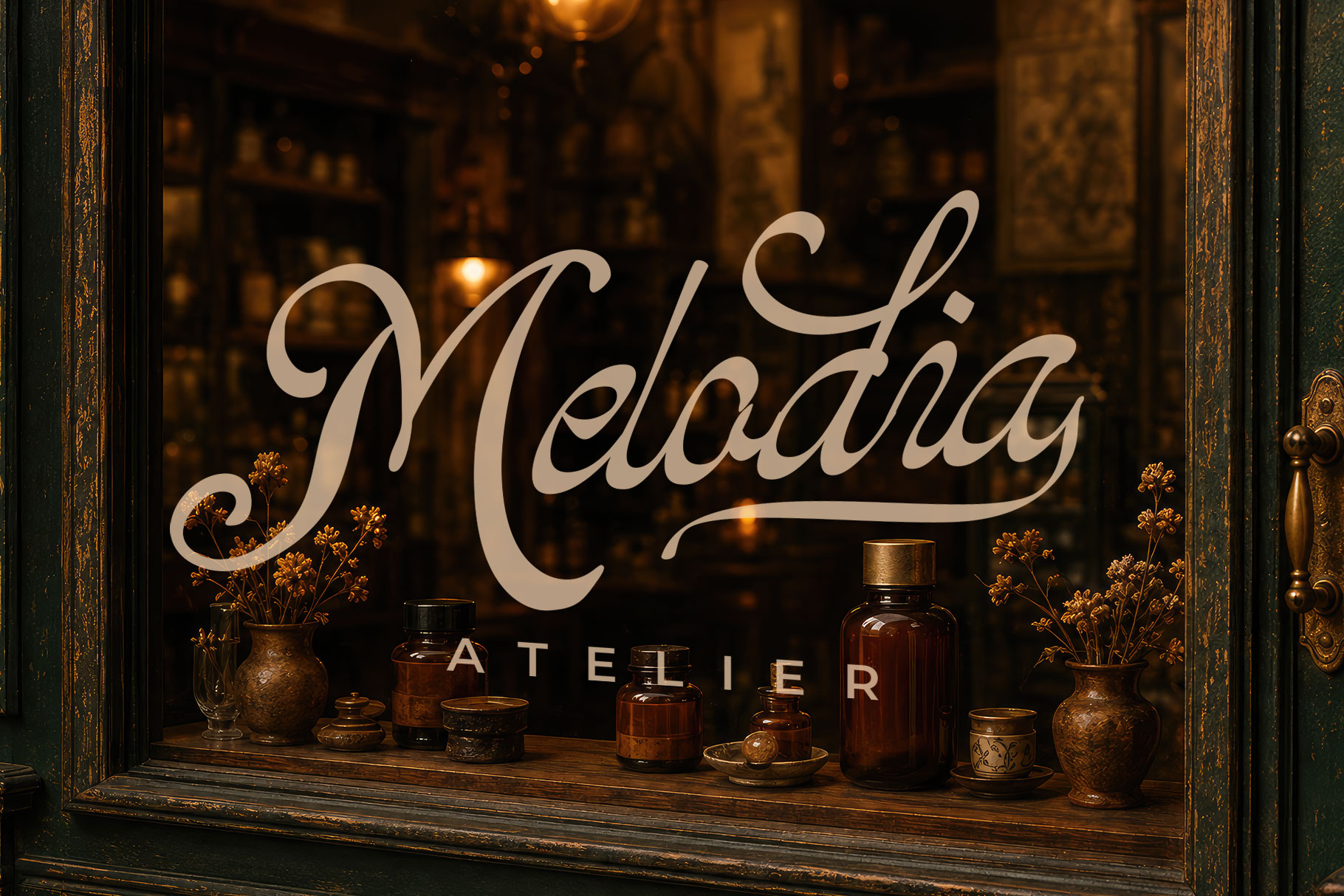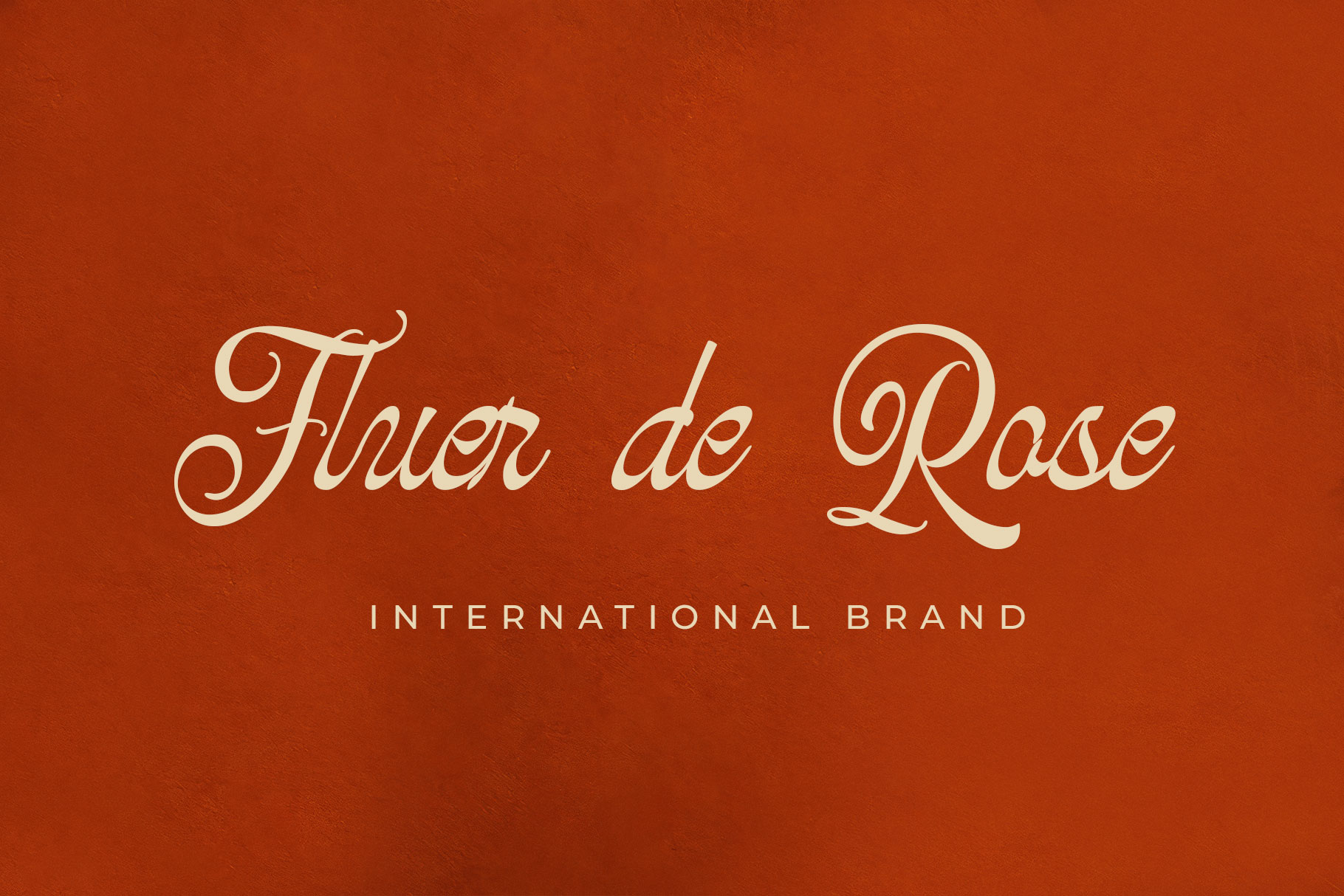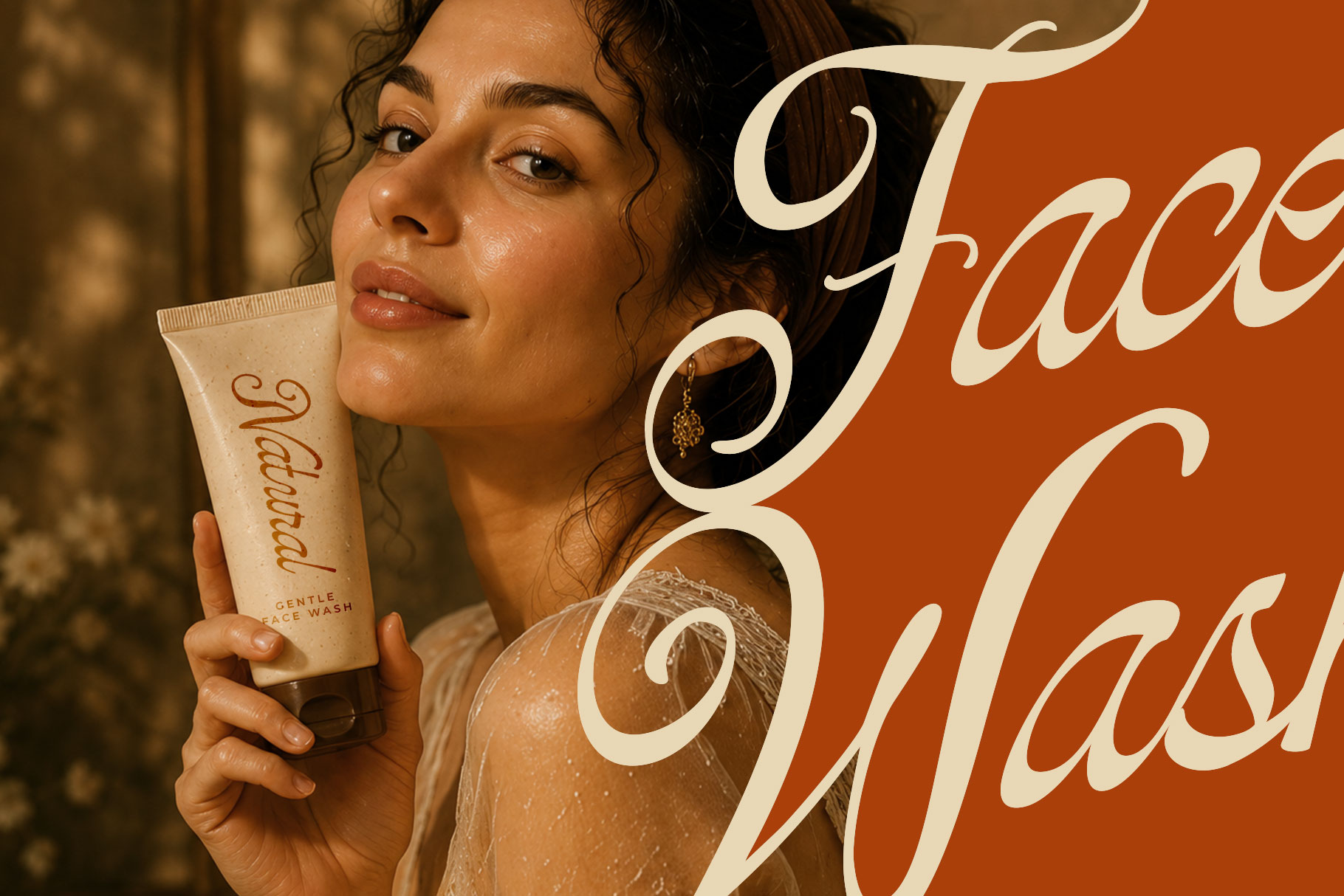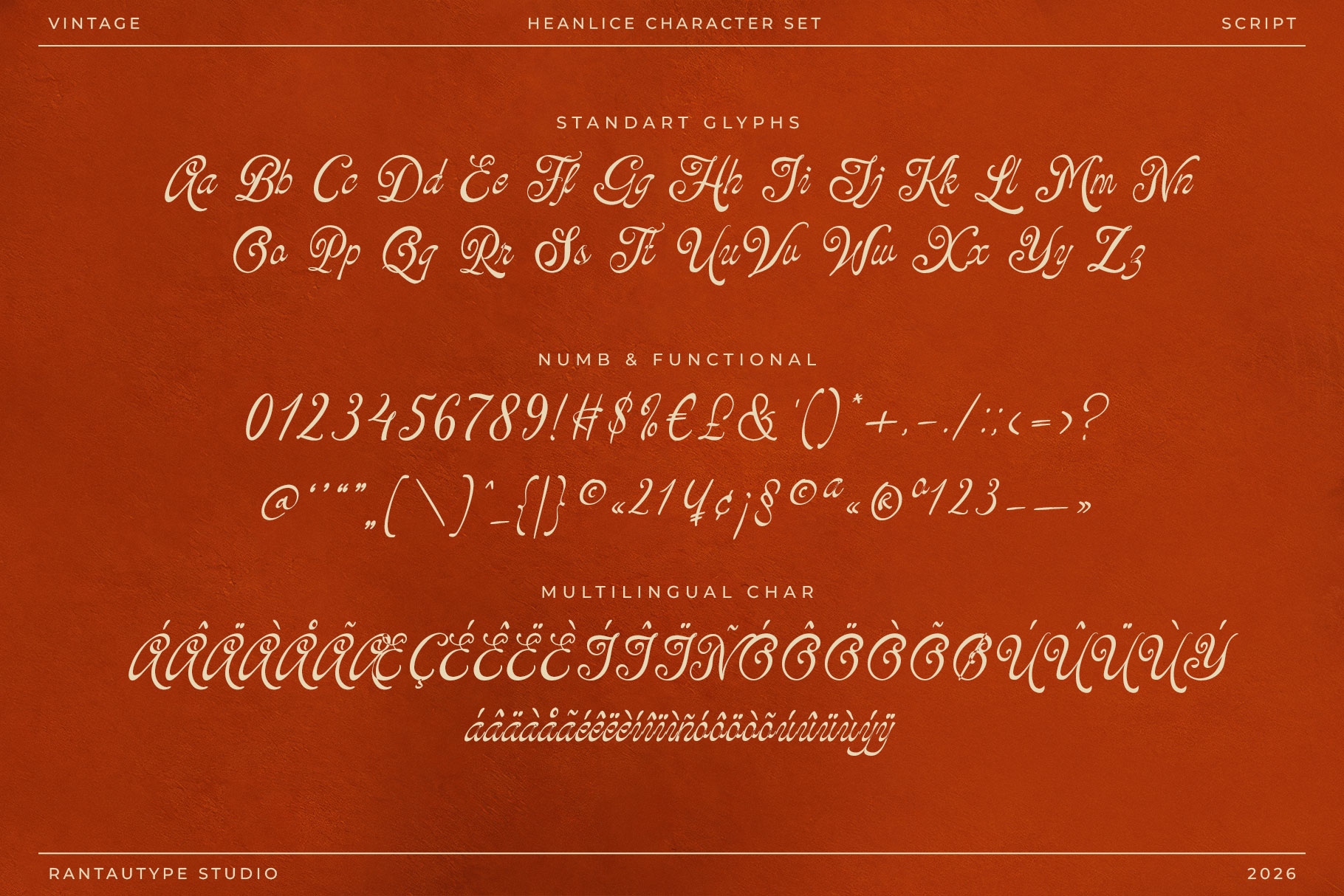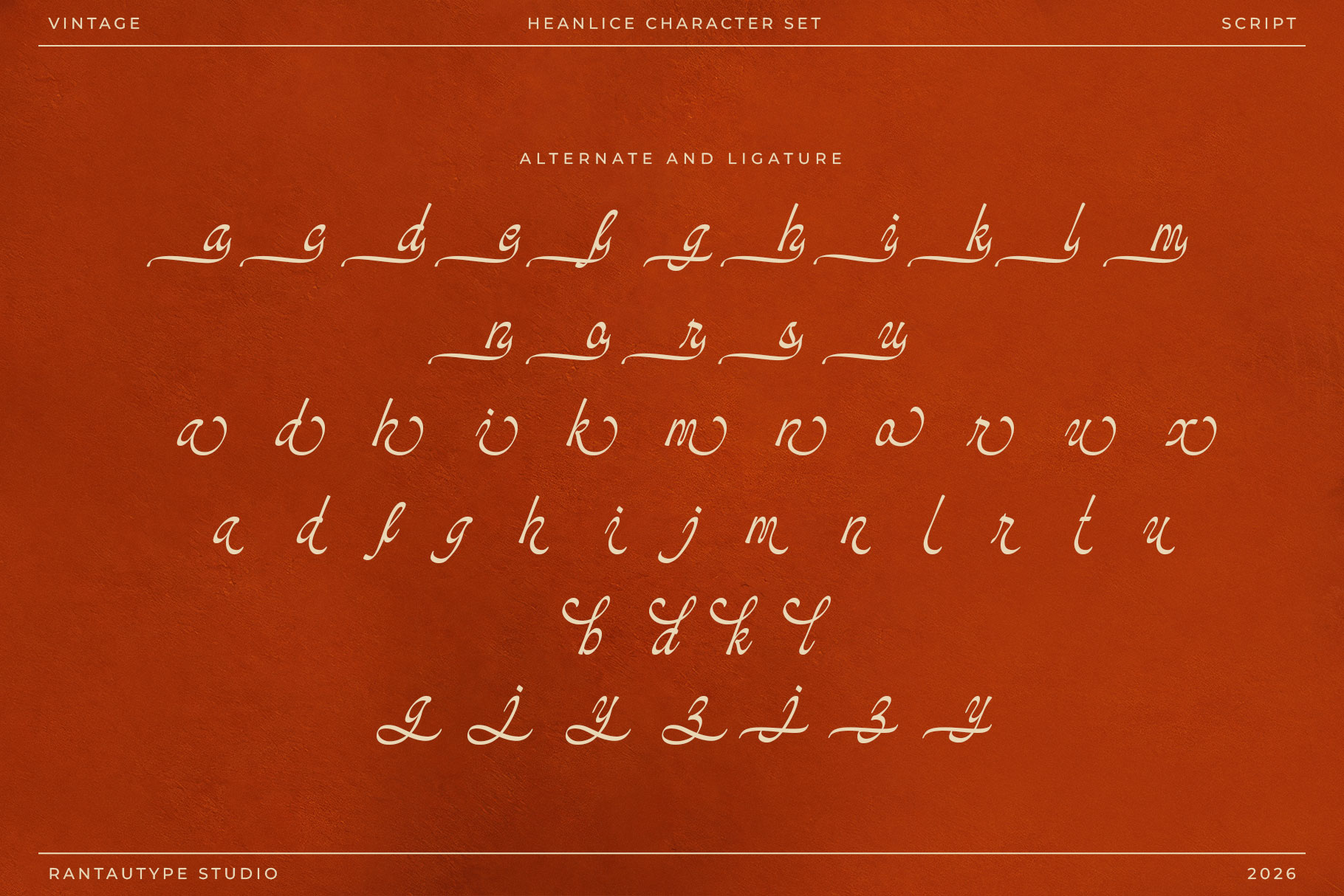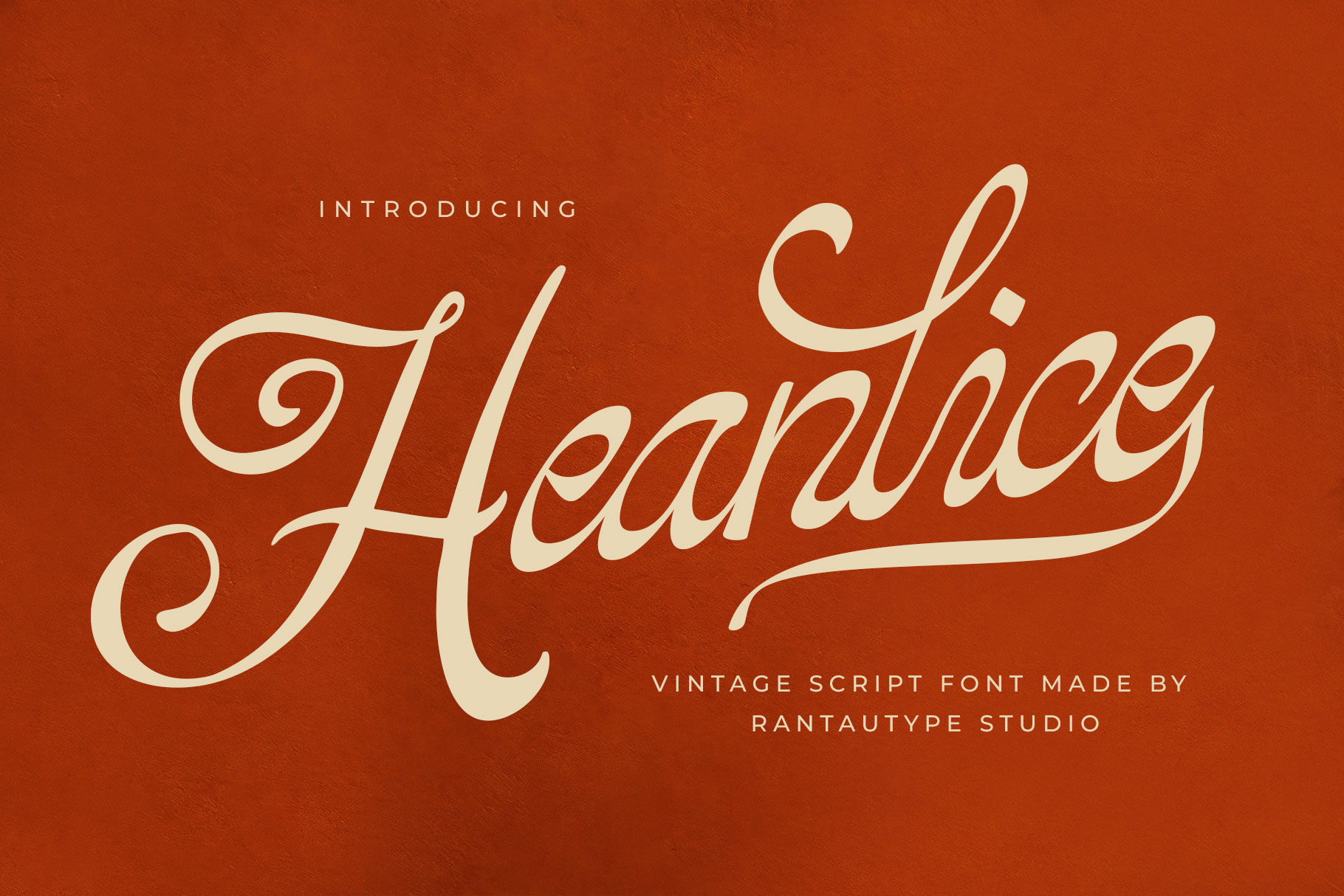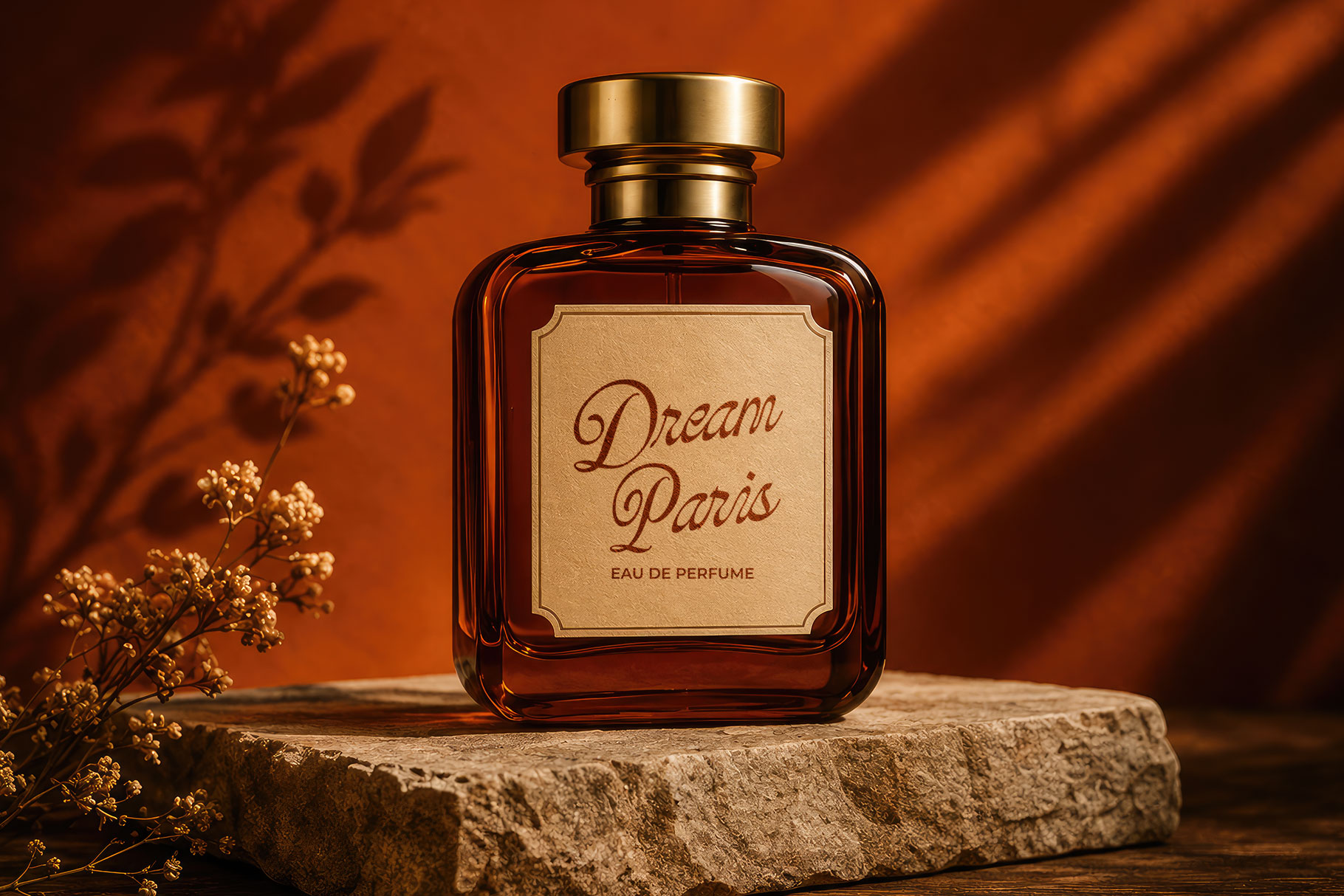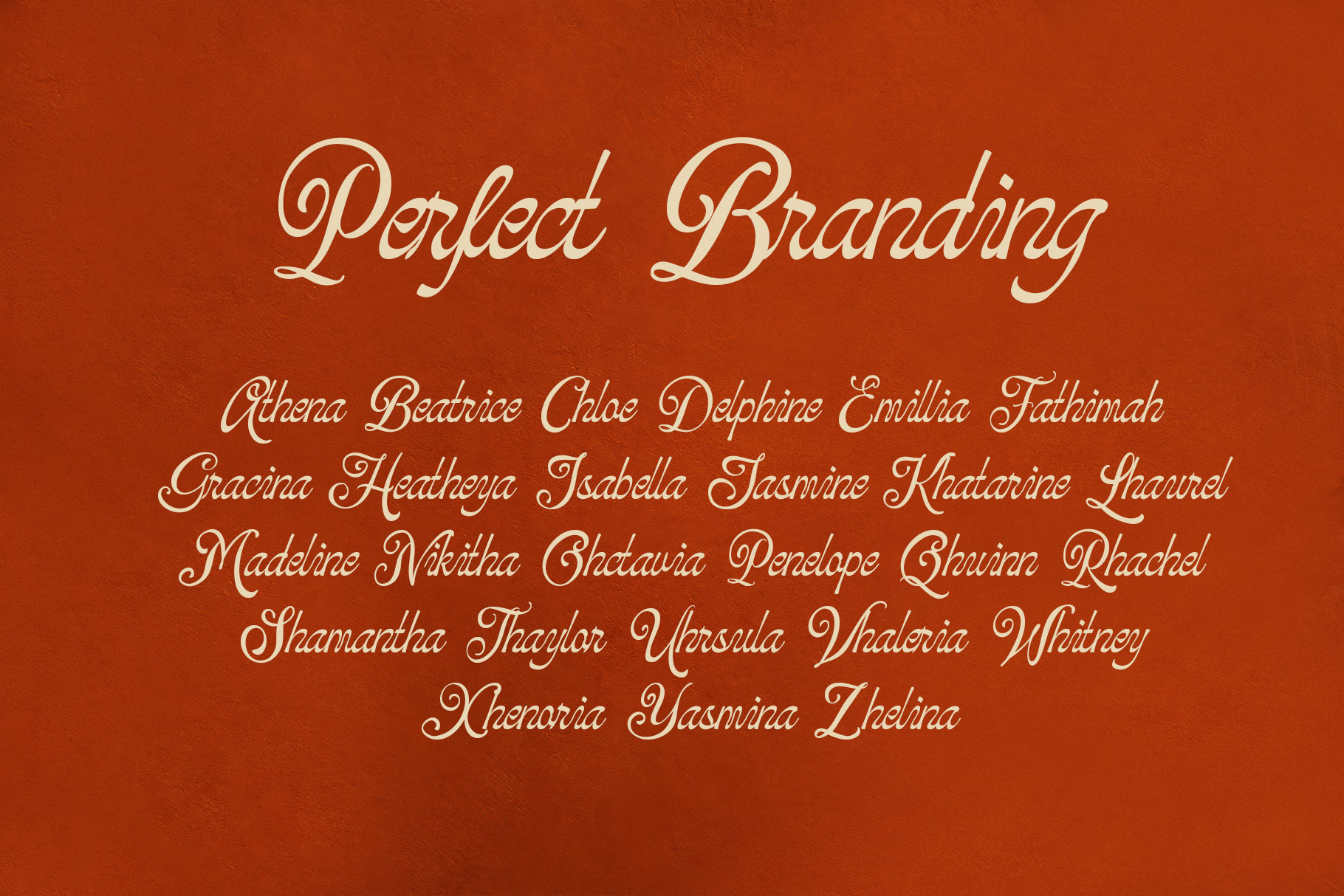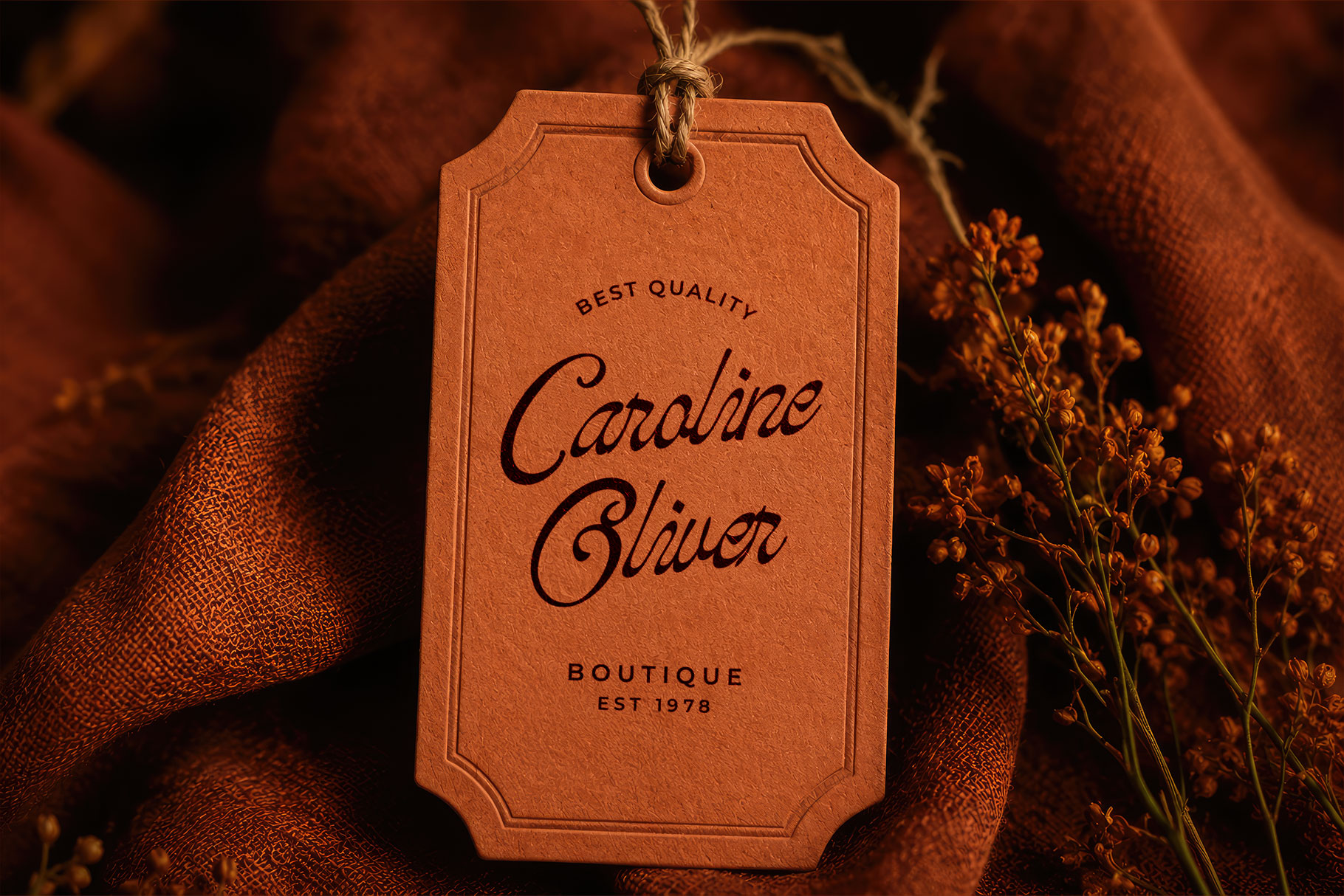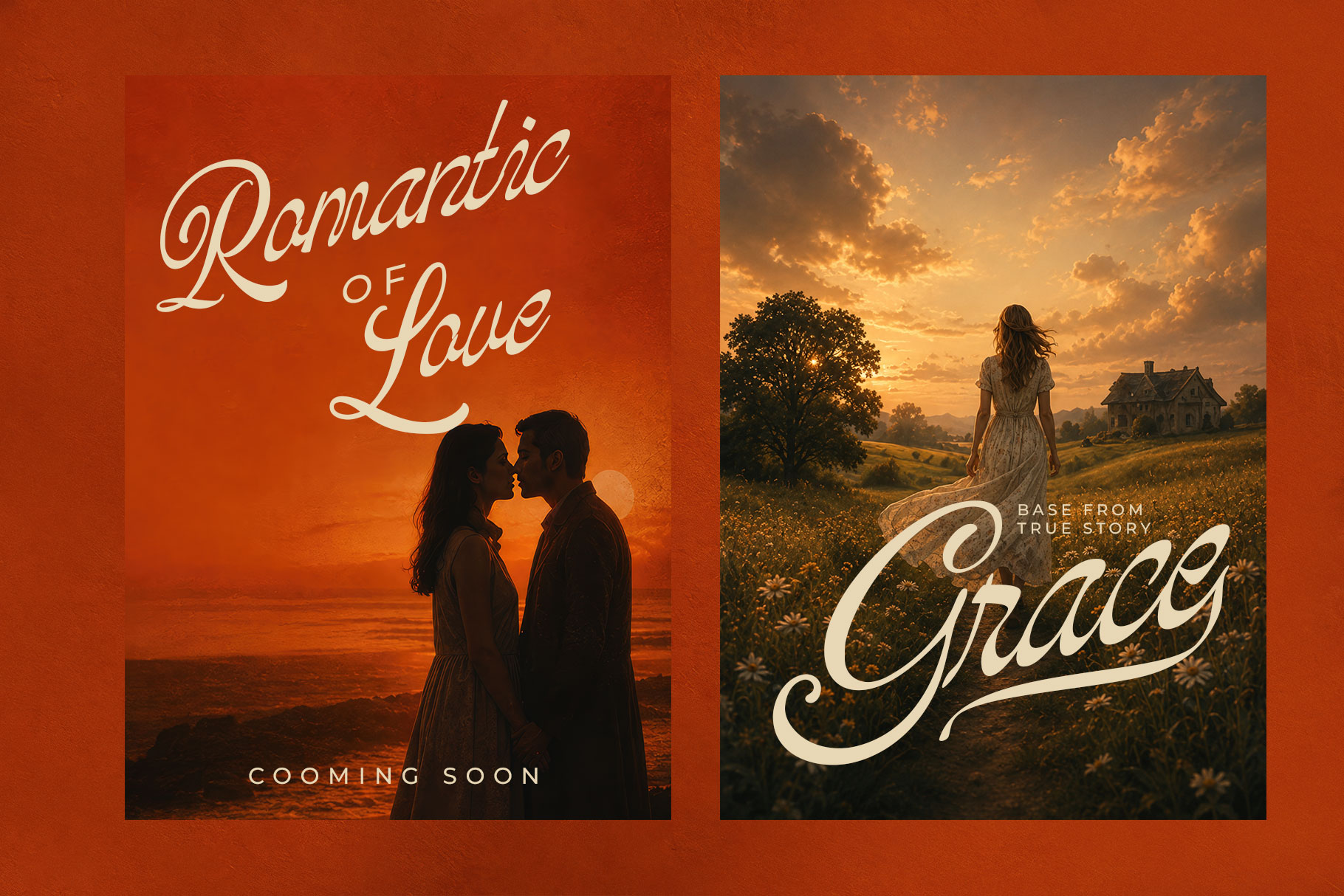
Heanlice is vintage script font captures the timeless charm of classic hand-lettering with a graceful, expressive character. Its flowing strokes, sweeping swashes, and elegant connections create a sense of movement that feels both romantic and sophisticated.
Heanlice is a perfectly choice for any creative endeavor, creating, modern, lifestyle design such as logotype, title, cover, branding, invitations, wedding designs, display and magazine, social media posts, advertisements, printed quotes, product packaging, corporate brand, wedding invitations, product designs, labels, photography, watermarks, special events and any other project with classic touch.
Heanlice Vintage Script Font